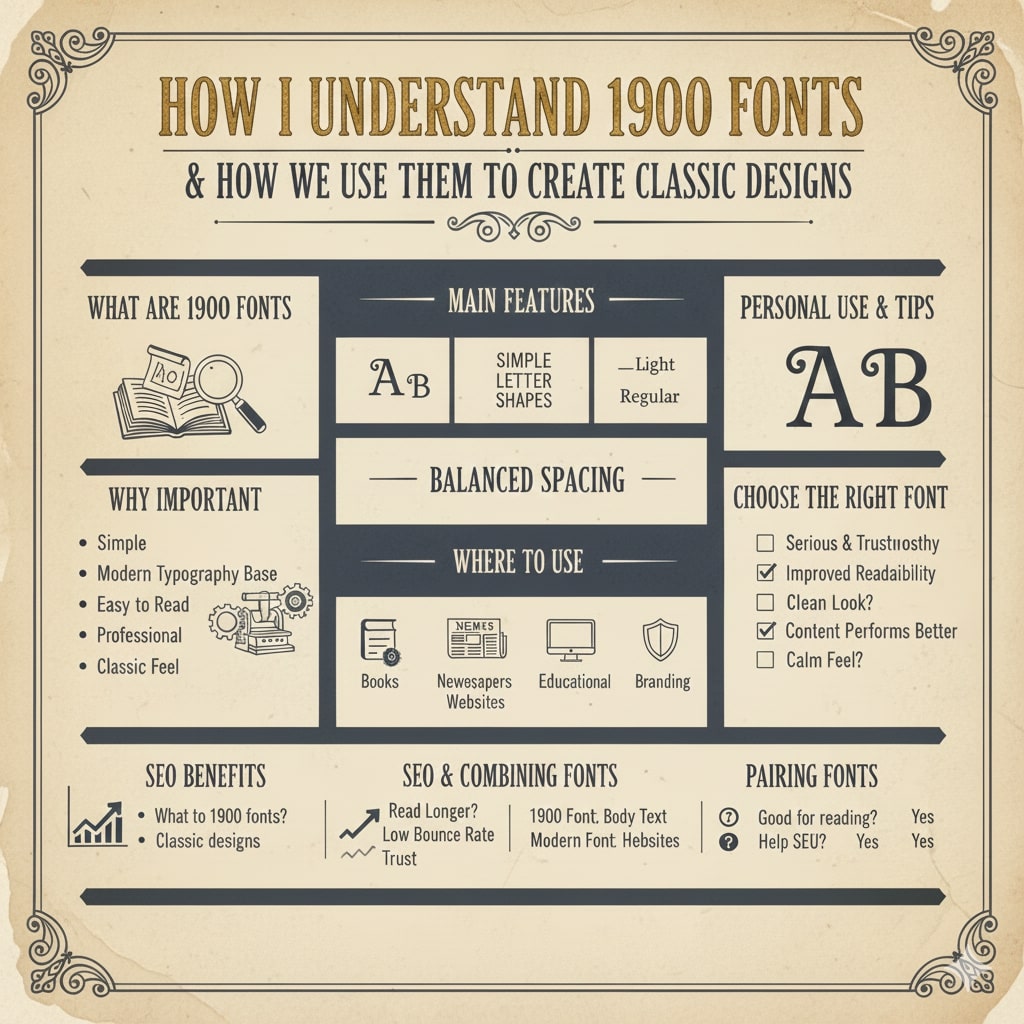
How I Understand 1900 Fonts And How We Use Them To Create Classic Designs
I think this guide helps you understand 1900 fonts in a simple way so we learn what these fonts are and how we use them to create classic elegant and readable designs.
I think 1900 fonts are very special because they show the beginning of modern design. When I first learned about these fonts I felt that they look simple, calm and very classy. These fonts were used when books, newspapers and signs were made with great care. I want to explain everything in a very easy way so even a young student can understand what 1900 fonts are and why they still matter today.
I think that if we understand 1900 fonts properly then we can use them for classic projects and clean designs. We should know where they work best and how to use them without confusion. This guide is written from my own experience so you get clear and helpful information.
What Are 1900 Fonts
I think 1900 fonts are type styles that were inspired by the early nineteen hundred design era. These fonts were created when printing was becoming popular and designers focused on clarity and readability.
We can see that these fonts look simple, thin and balanced. They do not try to be fancy. They try to be clear and respectful.
Why 1900 Fonts Are Important
I think these fonts are important because they started the base of modern typography. Many fonts we use today are inspired by this era.
We should care about 1900 fonts because They are easy to read They look professional They feel classic They work well for learning
If we want calm and trusted designs then these fonts are a great choice.
Main Features Of 1900 Fonts
I think understanding features helps us choose fonts easily.
Simple Letter Shapes
Letters are clean and not decorative.
Balanced Spacing
Text looks comfortable to read.
Thin And Medium Weight
Fonts do not look heavy or loud.
Classic Feel
They feel serious and respectful.
Where We Can Use 1900 Fonts
I think these fonts are useful in many places.
Books
They are perfect for reading long text.
Newspapers
They help people read fast and clearly.
Educational Content
Students understand text easily.
Websites
Blogs and articles look clean.
Branding
Classic brands use these fonts.
How I Personally Use 1900 Fonts
I think personal experience helps a lot. I use 1900 fonts when I want text to feel serious and trustworthy. I used them in articles and reading content and the result was very good.
Readers stayed longer because text was easy to read. That helped my content perform better.
How To Choose The Right 1900 Font
I think choosing the right font is simple if we ask basic questions.
Is the font easy to read Does it look clean Does it fit the topic Does it feel calm
If the answer is yes then the font is right.
How 1900 Fonts Help Content Rank Better
I think good readability helps SEO.
Users read longer Bounce rate becomes low Trust increases Content feels professional
That is why clean fonts help websites grow.
How To Combine 1900 Fonts With Modern Fonts
I think pairing fonts is smart.
Use 1900 font for body text Use modern font for headings
This keeps design fresh and readable.
Why Beginners Should Learn 1900 Fonts
I think beginners should start with these fonts.
They learn readability They learn balance They learn clean design
If you understand these fonts then modern fonts become easy.
FAQ About 1900 Fonts
What are 1900 fonts?
These are classic fonts inspired by early nineteen hundred designs.
Are 1900 fonts good for reading?
Yes they are excellent for reading.
Can students use 1900 fonts?
Yes they are perfect for learning.
Are these fonts modern?
They are classic but still useful today.
Do 1900 fonts help SEO?
Yes because they improve readability.
Conclusion
I think 1900 fonts are the foundation of good typography. We learned what they are, where to use them and how to avoid mistakes. If we use these fonts wisely then our designs feel clean, classic and professional.
We should not ignore these fonts because they teach us clarity and balance. This guide gives you simple knowledge and real experience so you can use 1900 fonts with confidence and create better designs easily.